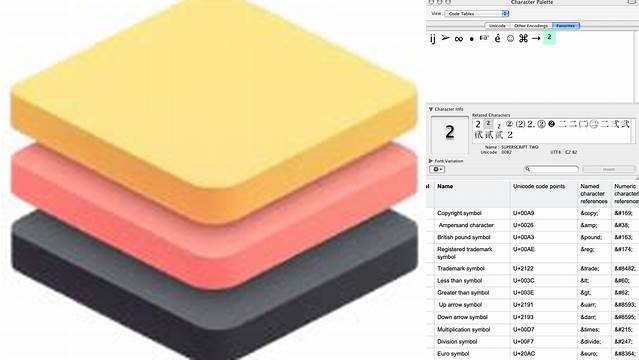
Unicode Fonts: The Ultimate Guide To Universal Text
Introduction: Diving into the World of Unicode Fonts
Hey guys! Let's kick things off by getting a handle on Unicode fonts. In today's digital age, Unicode fonts are the backbone of how we communicate across different languages and platforms. Think of Unicode as a universal language for computers – a way to ensure that text looks the same no matter where you open it. Ever wondered why you can see those cool emojis or read text in a foreign language on your phone or computer? That’s all thanks to Unicode! Essentially, Unicode fonts solve the headache of character encoding, which used to be a major pain back in the day. Before Unicode, different systems used different ways to represent characters, leading to a jumbled mess when you tried to open a document on a different computer or in a different country. Imagine sending a document to a friend in Japan, only for them to see a bunch of gibberish instead of your carefully crafted words. Unicode swoops in as the superhero, providing a unique number for every character, symbol, and even emoji, across virtually every language. This means seamless communication, no matter who you're talking to or what device they're using. It's like having a universal translator for the digital world! Unicode’s impact is far-reaching, influencing everything from web design to software development. Without it, the internet would be a much more fragmented and confusing place. So, whether you're a tech enthusiast, a designer, or just someone who loves using emojis, understanding Unicode fonts is crucial. In the following sections, we’ll dive deeper into what makes Unicode so special, how it works, and why it’s essential for a globally connected world. Get ready to unlock the power of universal text!
What Makes Unicode So Special? The Magic Behind Universal Text
Okay, let's get into the nitty-gritty of what makes Unicode so special. The beauty of Unicode lies in its universality and comprehensiveness. Unlike older character encoding systems that were limited to a specific language or character set, Unicode aims to include every character from every language ever used. That's a pretty ambitious goal, right? But that's what makes it so powerful! The core idea behind Unicode is to assign a unique number, called a code point, to each character. This means that whether you're typing in English, Chinese, Arabic, or even using a quirky emoji, each symbol has its own distinct identifier. This standardization is what allows for consistent rendering of text across different platforms, operating systems, and software applications. Imagine the chaos if each program had its own way of interpreting characters! Unicode also supports a vast range of characters, far beyond the basic Latin alphabet. It includes characters from historical scripts, mathematical symbols, and even dingbats. This extensive repertoire makes it possible to represent almost any written language or symbol imaginable. Another key feature of Unicode is its scalability. The system is designed to accommodate new characters and languages as they emerge, ensuring that it remains relevant and up-to-date. This is crucial in a world where languages evolve and new forms of communication, like emojis, become increasingly popular. The Unicode Consortium, the non-profit organization responsible for developing and maintaining the Unicode Standard, plays a vital role in this ongoing process. They meticulously document and standardize characters, ensuring that Unicode remains a reliable and comprehensive system. So, in a nutshell, what makes Unicode so special is its universality, comprehensiveness, scalability, and the diligent work of the Unicode Consortium. It’s the unsung hero of the digital world, quietly ensuring that we can all communicate seamlessly, no matter what language we speak or what device we use. In the next section, we’ll explore how Unicode fonts actually work their magic and bring these characters to life on our screens.
How Unicode Fonts Work: Bringing Characters to Life on Your Screen
Alright, let's demystify how Unicode fonts work. So, you know that Unicode assigns a unique number to each character, but how does that translate into the actual text you see on your screen? That's where fonts come into play. Think of a Unicode font as a collection of visual representations, or glyphs, for each character in the Unicode standard. Each glyph is a specific design for a character, and a font contains glyphs for a wide range of characters, numbers, symbols, and punctuation marks. When you type a character, your computer uses the Unicode code point to look up the corresponding glyph in the font you've selected. The font then tells the computer how to draw that character on the screen. It's like having a massive visual dictionary where each word (or character) has a specific picture associated with it. Different fonts have different styles and designs for the same characters. That's why the same text can look completely different in Arial versus Times New Roman. Each font designer interprets the Unicode standard in their own unique way, resulting in a vast array of fonts to choose from. The process of rendering Unicode fonts involves several technical steps. First, the operating system or application uses a font engine to interpret the font data. This data includes information about the shape of each glyph, its size, and its spacing. The font engine then rasterizes the glyph, converting it into a series of pixels that can be displayed on the screen. Modern Unicode fonts often use advanced technologies like OpenType, which allows for sophisticated typography and support for complex scripts. OpenType fonts can contain thousands of glyphs and can even include features like ligatures (where two or more characters are joined together) and contextual alternates (where the shape of a character changes depending on its surrounding characters). This makes it possible to create beautiful and highly readable text in a wide range of languages. Understanding how Unicode fonts work is crucial for designers, developers, and anyone who works with text on a computer. It allows you to choose the right font for the job and to ensure that your text looks its best across different platforms and devices. In the next section, we’ll delve into why Unicode fonts are so essential for global communication and the internet as a whole.
The Importance of Unicode Fonts for Global Communication and the Internet
Okay, guys, let’s talk about why Unicode fonts are so crucial in today’s interconnected world. In a nutshell, Unicode is the backbone of global communication on the internet. Imagine trying to navigate the web if every website used a different character encoding system. It would be a chaotic mess of broken characters and unreadable text. Unicode solves this problem by providing a universal standard for representing text, ensuring that everyone can access and understand information online, regardless of their language or location. The internet is a global platform, and Unicode fonts are what make it truly global. They allow websites, applications, and documents to display text in virtually any language, from English and Spanish to Chinese and Arabic. This is essential for businesses that want to reach a global audience, as well as for individuals who want to communicate with friends and family around the world. Without Unicode fonts, the internet would be a much more fragmented and inaccessible place. Think about it: social media platforms, email services, and online publications all rely on Unicode to display text correctly. Emojis, those ubiquitous little icons that have become an integral part of online communication, are also encoded in Unicode. Can you imagine a world without emojis? Thanks to Unicode, we can express ourselves in a fun and visually engaging way, no matter what language we speak. Unicode’s impact extends beyond the internet. It’s also essential for software development, document creation, and print publishing. Any application that deals with text needs to support Unicode in order to handle multiple languages and character sets. This ensures that documents and files can be shared and opened across different systems without any compatibility issues. The adoption of Unicode fonts has been a game-changer for global communication. It has made it easier than ever to create and share information in different languages, fostering collaboration and understanding across cultures. In the next section, we’ll explore some common types of Unicode fonts and how to choose the right one for your needs. Get ready to level up your font game!
Common Types of Unicode Fonts and How to Choose the Right One
Alright, let's dive into the common types of Unicode fonts and how to pick the perfect one for your project. With the vast array of fonts available, it can be a bit overwhelming to choose the right one. But don't worry, we're here to break it down! First off, it's important to understand that Unicode fonts come in various styles, each with its own unique characteristics and best-use cases. Serif fonts, like Times New Roman and Garamond, have small decorative strokes at the ends of the letters. They're often considered more traditional and are a great choice for formal documents, books, and other long-form text. Serif fonts tend to have a classic and elegant feel, making them ideal for projects that require a touch of sophistication. Sans-serif fonts, on the other hand, like Arial and Helvetica, lack those decorative strokes. They have a cleaner, more modern look and are often preferred for digital displays, websites, and headings. Sans-serif fonts are generally easier to read on screens, making them a popular choice for user interfaces and online content. Monospace fonts, like Courier New, have characters that all take up the same amount of horizontal space. This gives them a distinctive, typewriter-like appearance. Monospace fonts are commonly used in coding environments, where consistent character spacing is essential for readability. They can also be used for creative projects where a retro or technical aesthetic is desired. Script fonts mimic the look of handwriting and can add a personal and stylish touch to your designs. However, they can be more challenging to read in large blocks of text, so it's best to use them sparingly for headings, invitations, or other short pieces of text. When choosing the right Unicode font, it's important to consider the context and purpose of your project. Think about the overall tone and message you want to convey. A formal document might call for a serif font, while a modern website might benefit from a sans-serif font. Legibility is also a key factor. Make sure your chosen font is easy to read, especially in smaller sizes. Consider the target audience and the medium in which your text will be displayed. Finally, don't be afraid to experiment with different fonts to find the perfect match for your project. There are countless Unicode fonts available, so take the time to explore and discover new favorites. In the next section, we’ll tackle some frequently asked questions about Unicode fonts, so you can become a true Unicode pro!
FAQs About Unicode Fonts: Your Burning Questions Answered
Alright, let's tackle some of those frequently asked questions about Unicode fonts. You've got questions, we've got answers! One common question is: “What’s the difference between Unicode and a font?” It’s a great question! Think of Unicode as the master list of characters and their corresponding numbers. It’s like a dictionary that defines what each character is. A font, on the other hand, is the visual representation of those characters. It’s the specific design and style that determines how each character looks. So, Unicode is the standard, and fonts are the implementation of that standard. Another frequent question is: “Do I need to install special fonts to see Unicode characters?” In most cases, the answer is no. Modern operating systems and web browsers come with a wide range of Unicode fonts pre-installed, which cover most common languages and symbols. However, if you need to display characters from a less common language or a specific script, you might need to install additional fonts that support those characters. You can usually find free Unicode fonts online or purchase them from font foundries. “How do I know if a font supports Unicode?” This is an important question! Most modern fonts are Unicode-compliant, but it's always a good idea to check. You can usually find this information in the font's documentation or on the font foundry's website. Look for mentions of Unicode support or specific Unicode character ranges. If a font is Unicode-compliant, it should be able to display a wide range of characters from different languages and scripts. Another common concern is: “Can I use Unicode fonts in my web design?” Absolutely! In fact, it’s highly recommended. Using Unicode fonts on your website ensures that your content can be displayed correctly in different browsers and on different devices. You can use CSS to specify the fonts you want to use on your website, and there are many web-safe Unicode fonts to choose from. And here’s a good one: “Are all fonts Unicode fonts?” While most modern fonts are Unicode-compliant, not all fonts are created equal. Older fonts might use different encoding systems and may not support the full range of Unicode characters. It’s always best to use Unicode fonts to ensure maximum compatibility and support for different languages. So, there you have it – some of the most frequently asked questions about Unicode fonts, answered! If you have more questions, don’t hesitate to ask. In the final section, we’ll wrap up with some final thoughts and key takeaways about the wonderful world of Unicode fonts.
Conclusion: Final Thoughts on the Power of Unicode Fonts
Alright, guys, we've reached the end of our journey into the fascinating world of Unicode fonts. Let's take a moment to recap some key takeaways and reflect on the power of Unicode in our digital lives. Throughout this guide, we've explored what Unicode fonts are, what makes them so special, how they work, and why they're essential for global communication and the internet. We've also delved into common types of Unicode fonts and how to choose the right one for your needs, and we've tackled some frequently asked questions. So, what's the big picture? Unicode is more than just a technical standard; it's a foundation for global understanding and collaboration. By providing a universal system for representing text, Unicode allows us to communicate seamlessly across languages, cultures, and platforms. It's the invisible thread that connects us all in the digital world. Unicode fonts are the visual manifestation of this standard, bringing characters to life on our screens in a myriad of styles and designs. They're the tools that designers, developers, and content creators use to craft compelling and accessible experiences for users around the world. As technology continues to evolve and the world becomes increasingly interconnected, the importance of Unicode will only continue to grow. It's a testament to human ingenuity and our desire to communicate and share ideas with one another. Whether you're designing a website, writing a document, or simply sending a text message, Unicode fonts are working behind the scenes to ensure that your message is delivered clearly and accurately. So, the next time you see text on your screen, take a moment to appreciate the power of Unicode and the beautiful fonts that bring it to life. Thanks for joining me on this exploration of Unicode fonts. I hope you've gained a deeper understanding of this essential technology and how it shapes our digital world. Keep exploring, keep learning, and keep communicating!